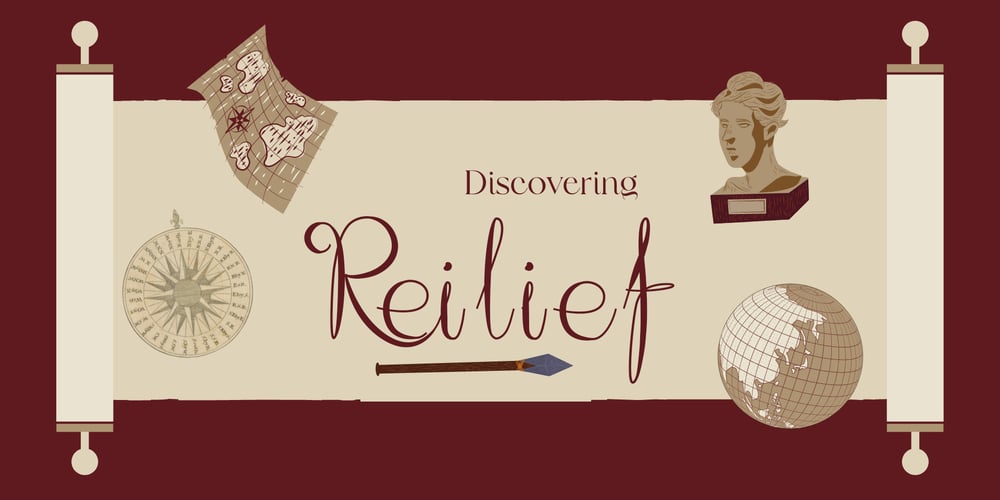
Reilief
Reilief font
Reilief Font Family was designed by Yoseph Junaidi and published by Sopheynoft. Reilief contains 1 styles and family package options. Reilief is an elegant font, timeless and sophisticated choice that adds a personal touch to any design project. With its flowing strokes and graceful curves, this typeface captures the artistry and fluidity of a skilled calligrapher’s pen. Each letter is thoughtfully crafted to convey a sense of elegance and refinement, with delicate flourishes and tapered strokes that lend a sense of movement and grace.With many available ligatures, joining certain letter combinations it creates more legible and pleasing appearance, with the letters appearing to dance across the page.Whether used for wedding invitations, branding, or editorial design, Reilief Fonts brings a touch of intimacy and personality to any project. Its warmth and beauty create a connection with the reader, conveying a sense of care and attention to detail. With its timeless appeal and ability to convey emotion and personality, an elegant handwriting font is a versatile choice for any designer looking to add a touch of sophistication and style to their work.